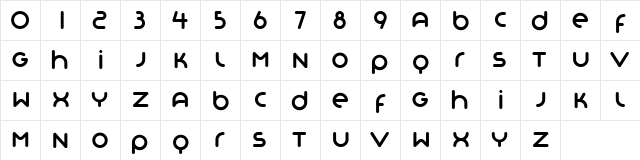
Organo (colored version at: logomagazin.com/organo-font) Regular
| Foundry | Nikola Nikolov |
| Designer | Nikola Nikolov |
Design Context for Organo (colored version at: logomagazin.com/organo-font) Typeface
Organo (colored version at: logomagazin.com/organo-font) is a composed and adaptable typeface that performs quietly and consistently across a wide range of design contexts.